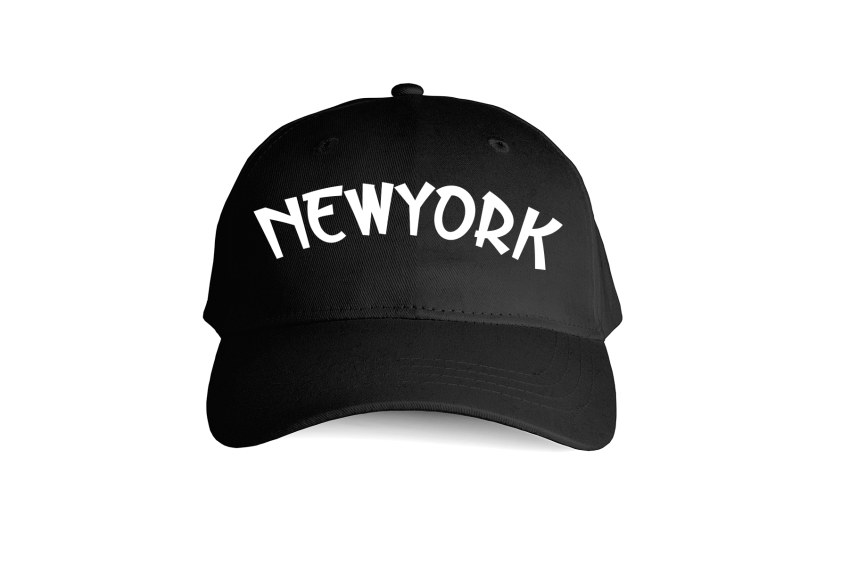
Summer Envelope Playful Font
Summer Envelope Playful Font is a sweet and friendly handwritten display font. Cute and fun, this font is ideal for writing wedding invitations, cards, or any other design that might need a playful touch!